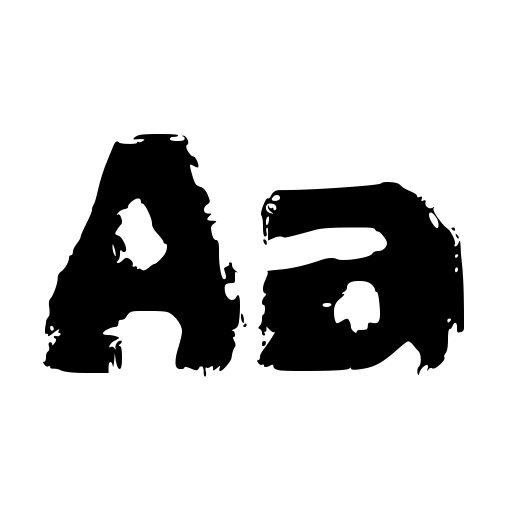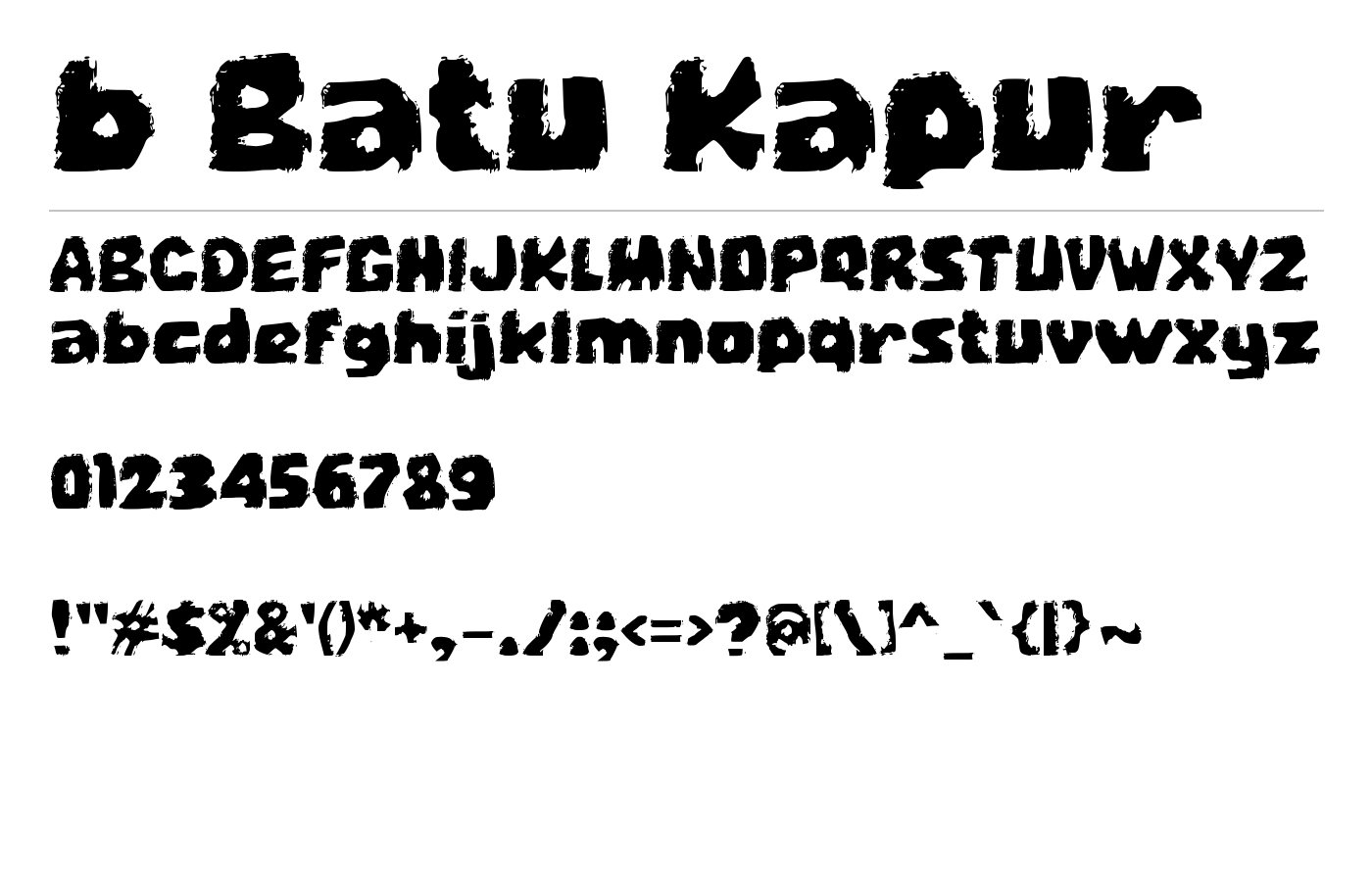
b Batu Kapur is a bold, textured display font with a hand-drawn, gritty feel that adds a strong, raw personality to any design. Its irregular edges and chunky letterforms create an organic, impactful style perfect for attention-grabbing headlines, posters, and creative branding that seeks an informal yet striking look. This font works well where expressive, rugged energy is needed to stand out and convey a sense of authenticity and boldness.
b Batu Kapur Font
About b Batu Kapur Font